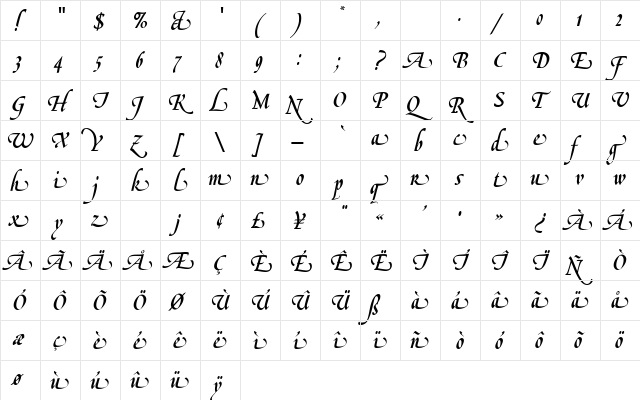
LeGriffeEFAlternateTwo Regular Font Preview
LeGriffeEFAlternateTwo Regular
Design Context for LeGriffeEFAlternateTwo Typeface
LeGriffeEFAlternateTwo is a composed and adaptable typeface that performs quietly and consistently across a wide range of design contexts.